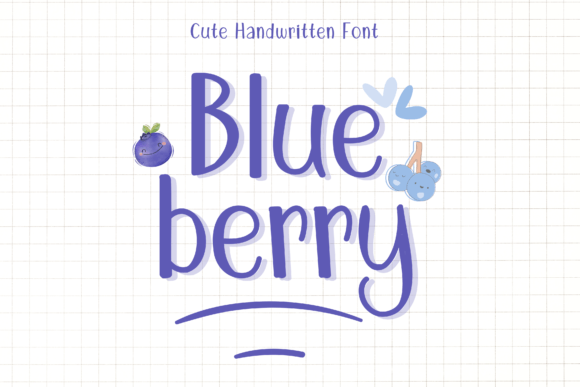
The Perfect Touch of Whimsy: Introducing Blue Berry Font
Have you ever been brainstorming a creative project, only to find yourself stuck on the perfect font to bring it all together? We’ve all been there – the blank page staring back at us, begging for inspiration. But what if I told you that the perfect font was just a click away? Enter the delightful Blue Berry Font, a charming handwritten font designed to add a touch of whimsy to your digital creations.
Whether you’re a social media guru, a digital planner extraordinaire, or a crafty entrepreneur, Blue Berry Font is the perfect addition to your toolkit. With its simple yet elegant design, this font is perfect for branding, crafts, invitations, and more. Its versatility and charm make it a valuable asset for designers looking to add a personal touch to their work.
Blue Berry Font Key Features
- Font Family: Blue Berry Font is a sans-serif font family designed for digital use.
- Font Size: Blue Berry Font is available in 8 font sizes, ranging from 8pt to 72pt, to cater to various design requirements.
- Resolution: Optimized for high-resolution displays, making it suitable for use in digital media, including web design, mobile apps, and print materials.
- Unique Characteristics: The font features a modern, clean design with a subtle rounded edge, making it perfect for use in corporate branding, digital products, and user interfaces.
- Language Support: Blue Berry Font supports a wide range of languages, including Latin, Cyrillic, Greek, and more, making it a versatile choice for global designs.
Blue Berry Font Review
When I first laid eyes on the Blue Berry Font, I was immediately drawn to its playful and youthful vibe ✨. The rounded edges and whimsical feel make it perfect for designs that need a touch of fun and approachability. The font’s color palette is also quite versatile, offering a range of shades to suit different design styles.
One of the standout features of Blue Berry Font is its readability, even at smaller font sizes ✨. This makes it an excellent choice for digital designs, such as mobile apps, websites, and social media graphics. The font also supports a wide range of languages, making it a great option for global designs.
- ⚠️ Limited flexibility: The Blue Berry Font is best suited for casual, creative designs. It may not be the best choice for more formal or professional projects.
- ⚠️ Not ideal for small text: While the font is readable at smaller sizes, it can become distorted if pushed too far.
Overall, I think the Blue Berry Font is a fantastic addition to any designer’s toolkit ✨. Its unique personality and versatility make it a great choice for a wide range of projects. However, it’s essential to keep its limitations in mind and use it judiciously to get the best results.
The Blue Berry font is ideal for:
- Designing children’s books and educational materials.
- Creating social media graphics and advertisements.
- Developing brand identities and logos.
Experiment with different font sizes, colors, and styles to create a unique look.
Combine the Blue Berry font with other fonts to create a visually appealing contrast.
Use the font in conjunction with images and graphics to create engaging and eye-catching designs.
Alternatives to Blue Berry Font for Designers
Pacifico is a beautiful, elegant script font ideal for creating a luxurious and sophisticated look. It’s perfect for use in invitations, wedding stationery, and other high-end designs where a touch of elegance is required.
Compared to Blue Berry Font, Pacifico has a more refined and polished appearance, making it suitable for high-end designs. While Blue Berry Font has a more playful and casual feel, Pacifico is better suited for formal and sophisticated designs.
Great Vibes is a modern, elegant script font that’s perfect for creating a stylish and sophisticated look. It’s ideal for use in magazine headlines, advertisements, and other designs where a touch of elegance is required.
Compared to Blue Berry Font, Great Vibes has a more modern and sleek appearance, making it suitable for contemporary designs. While Blue Berry Font has a more playful and casual feel, Great Vibes is better suited for modern and sophisticated designs.